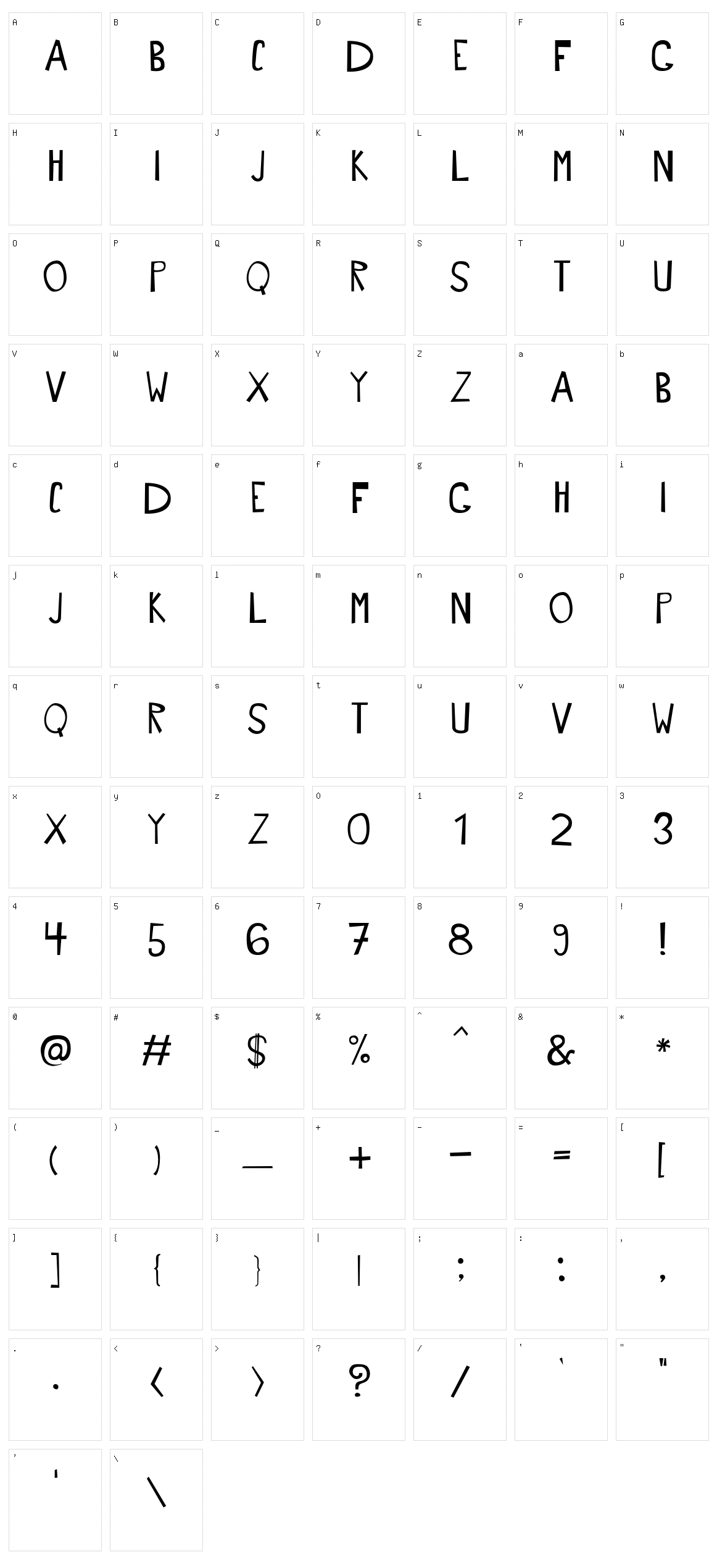
The free font Jek 5 is carefully designed by Lmnd, showcasing a thoughtful balance of creativity and usability and falls under the Cartoon font style. When you download the ZIP file, it contains only 10.55 KB of font files, making it lightweight and quick to download. Please review the license details below to understand permitted usage and distribution rights. If license information is not available, we recommend using this font for personal projects only or contacting the author directly for commercial usage permissions.